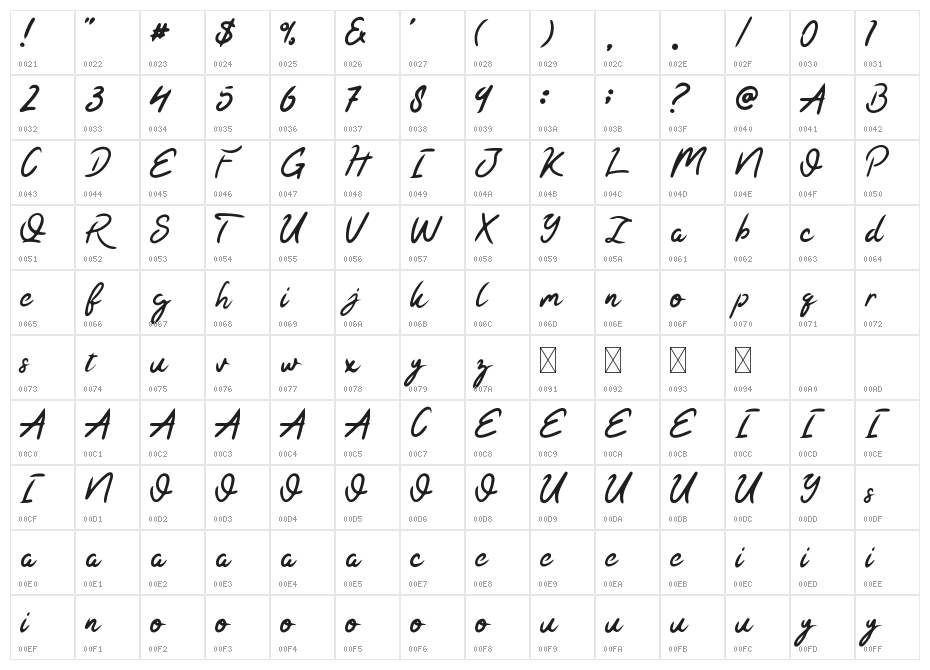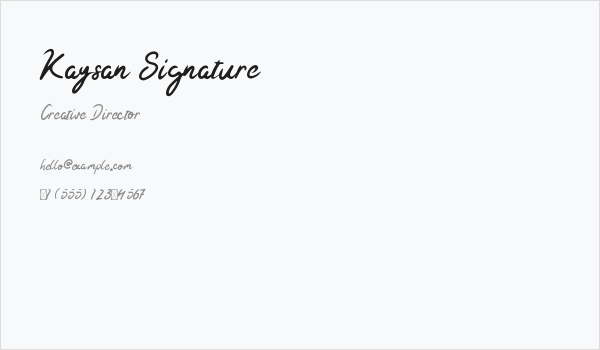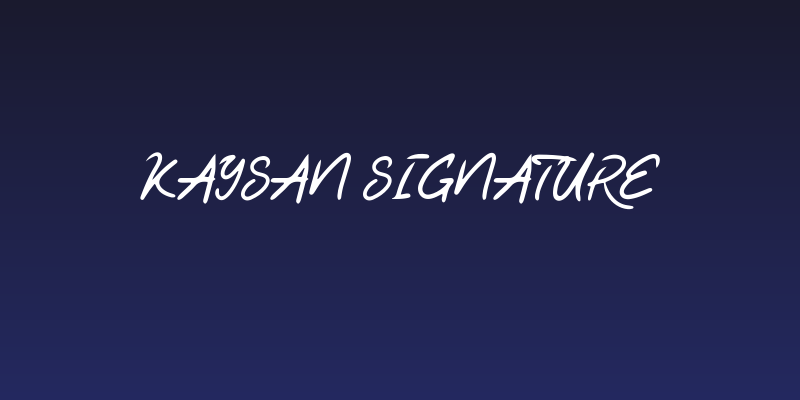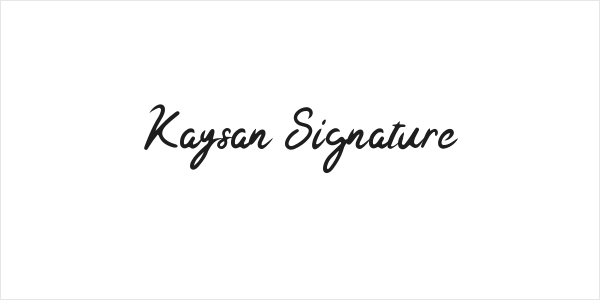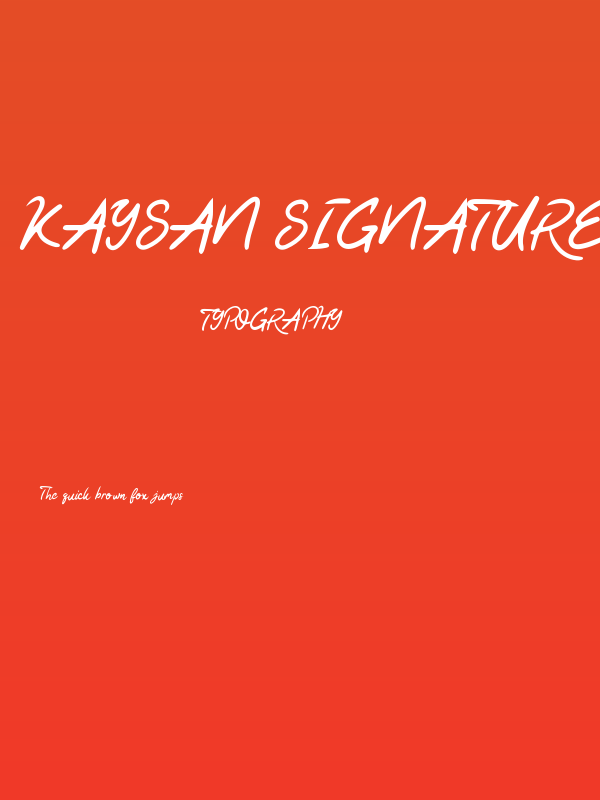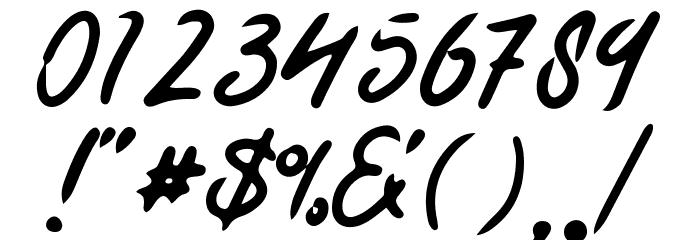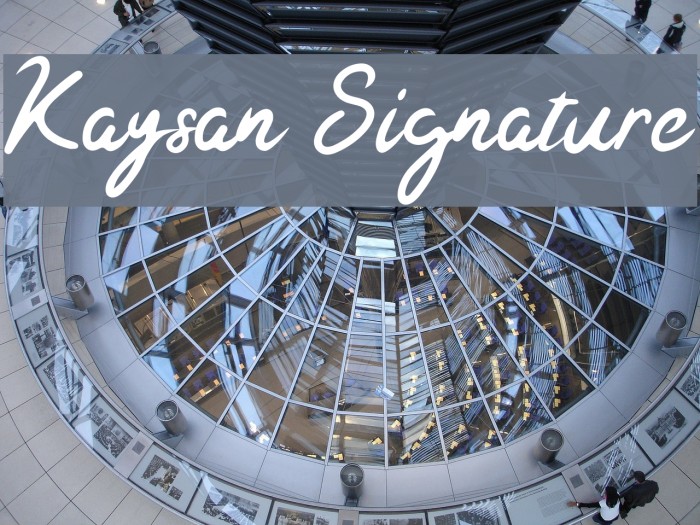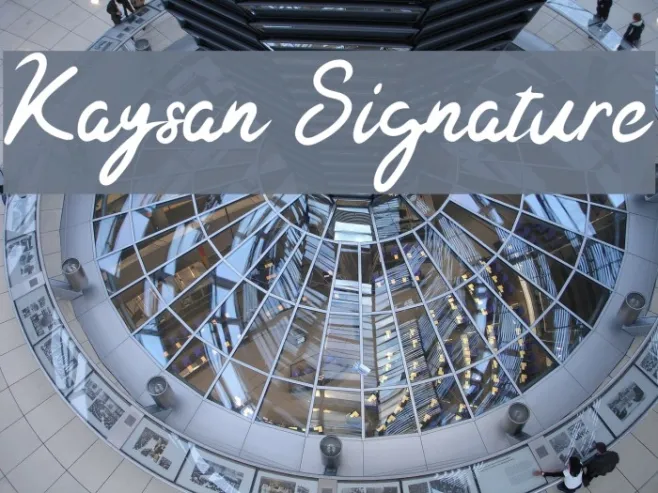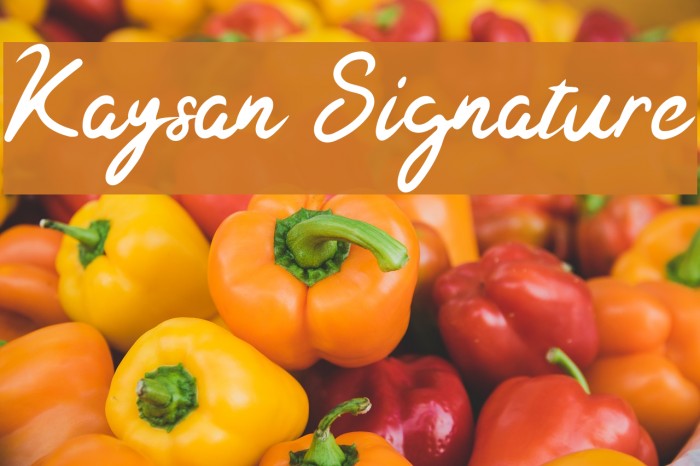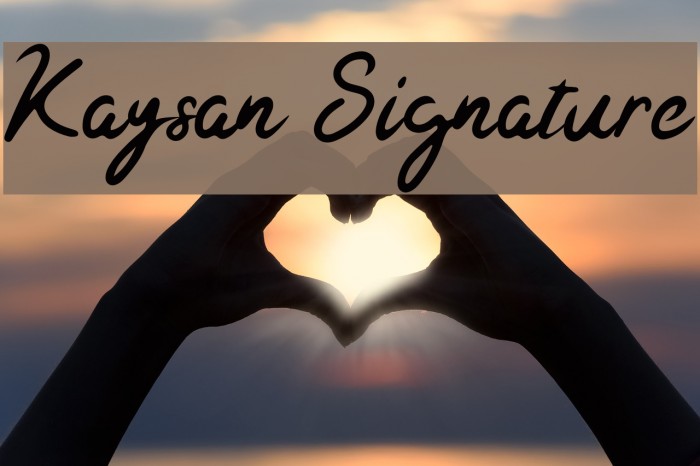
Kaysan Signature Font
Kaysan Signature Description
This font exudes a dynamic and fluid style, characterized by its cursive and handwritten appearance. The letters are interconnected, giving it a seamless flow that mimics natural handwriting. The strokes are bold and confident, with a slight slant that adds to its elegant and sophisticated look. The uppercase letters maintain a consistent height, while the lowercase letters vary slightly, adding to the organic feel. The numerals and special characters are crafted with the same attention to detail, ensuring uniformity across all elements. This font is perfect for projects that require a personal touch, such as invitations, greeting cards, or branding materials.
| Proposed Projects | Ideal for invitations, greeting cards, branding, and personal projects. |